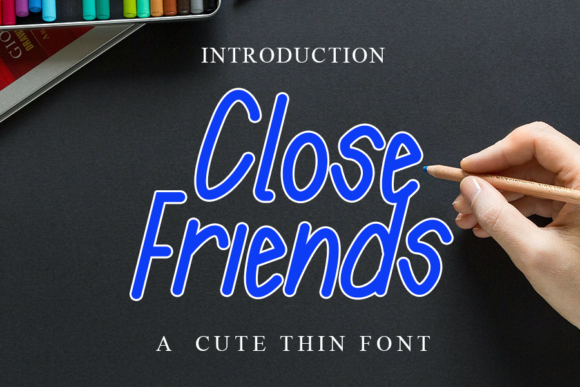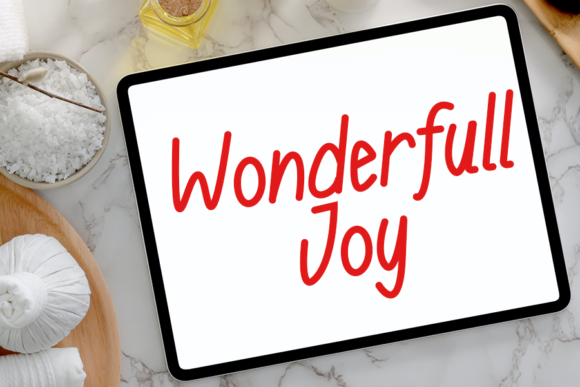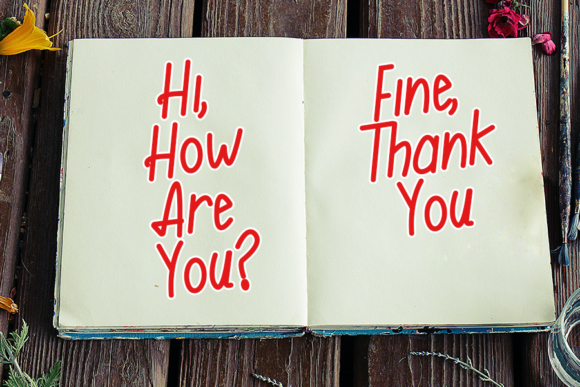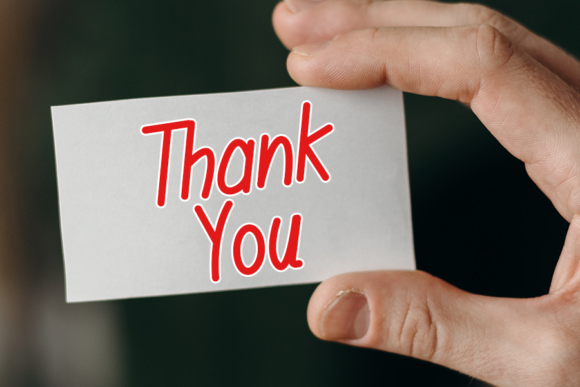
The Perfect Script for Your Creations: Close Friends Font
Have you ever been brainstorming ideas for a new project, only to have a eureka moment when you stumble upon the perfect font? That’s exactly what happened to many designers when they discovered the Close Friends Font – a cute handwritten font with a classy and sophisticated feel.
Designed to evoke a sense of closeness and familiarity, this skinny font is perfect for creating a personal and realistic aesthetic for your creations. Whether you’re designing a wedding invitation, a birthday card, or a social media graphic, Close Friends Font adds a touch of warmth and elegance to your designs.
For designers, Close Friends Font is a valuable addition to their toolkit. Its versatility and unique charm make it a go-to choice for a wide range of projects, from stationery and packaging to digital art and more.
Close Friends Font Key Features
- Font Family: Close Friends Font is a sans-serif font family designed for digital use, making it ideal for social media, mobile apps, and websites.
- Unique Characteristics: The Close Friends Font features a distinctive rounded edge design, giving it a friendly and approachable feel, while its open counters and terminals make it highly legible even at small sizes.
- Language Support: The font supports over 100 languages, including Latin, Cyrillic, Greek, and many Asian languages, making it an excellent choice for global brands and applications.
- Customizability: The Close Friends Font is highly customizable, allowing designers to adjust font weights, styles, and sizes to suit their specific design needs.
Close Friends Font Review
Overall, I think Close Friends Font is a cute and playful font that’s perfect for social media, blogs, or any project that needs a friendly vibe ✨. It’s great for titles, headings, or even short text blocks where you want to add a touch of whimsy.
The font’s rounded edges and subtle irregularities give it a hand-drawn feel, which can be really endearing to users. It’s also highly legible, even at smaller font sizes, making it suitable for a wide range of applications.
- Playful and cute design ✨
- Highly legible, even at smaller font sizes
- Perfect for social media, blogs, or any project that needs a friendly vibe
- May not be suitable for formal or professional projects due to its playful nature ⚠️
- May not be as versatile as other fonts, as it’s designed for a specific aesthetic
Overall, I think Close Friends Font is a great choice for projects that need a lighthearted and approachable feel. Just keep in mind its limitations and use it judiciously to avoid overwhelming your audience.
Tips for Getting the Most Out of Close Friends Font
Use Close Friends Font to add a touch of personality to your designs. It’s perfect for social media graphics, blog posts, and other digital content. Experiment with different font sizes and styles to create visual interest.
Close Friends Font is ideal for:
– Blog posts
– Digital invitations
– Email headers
– Branding materials
Alternatives to Close Friends Font for Designers
The Close Friends Font, designed by Casablanca, is a popular script font used for titles, quotes, and other text-based designs. However, there are several alternatives available that offer similar characteristics and can be used in various design contexts.
Pacifico is a beautiful, elegant script font designed by Vernon Adams. It’s ideal for use in wedding invitations, quotes, and titles where a touch of sophistication is required. Pacifico has a similar flowing feel to Close Friends Font but with a more refined, polished look.
Great Vibes is a modern script font designed by Laurent Bourdelas. It’s perfect for use in digital designs, such as social media graphics, blog titles, and website headers. Great Vibes has a more dynamic feel than Close Friends Font, with a bolder, more expressive character set.